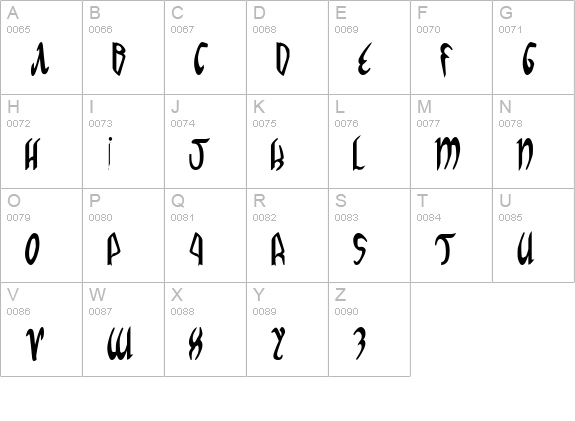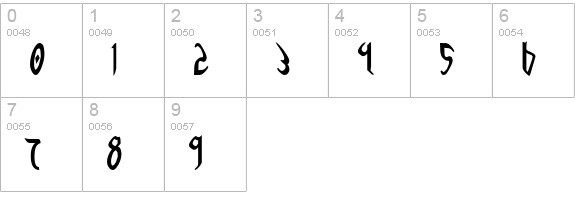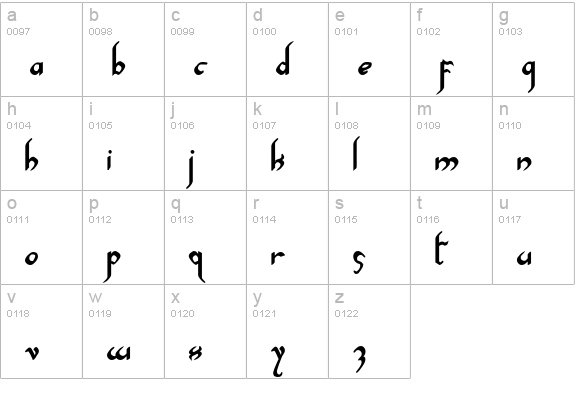
Xaphan Bold is a strong, high-contrast variant in the Xaphan typeface family \xE2\x80\x94 well suited to headlines, attention-grabbing titles, and strong calls-to-action.
Introducing Xaphan Bold, a modern and stylish font that exudes confidence and sophistication. With its bold and striking design, Xaphan Bold is perfect for making a statement in your projects. Whether you're designing a logo, poster, or website, this font will add a touch of elegance and flair. What makes Xaphan Bold even more appealing is that it is available for free download at FontsMarket.com. Yes, you read that right - you can get your hands on this fantastic font at no cost at all! Simply head over to FontsMarket.com and start using Xaphan Bold to elevate your designs to the next level. Don't miss out on this amazing opportunity to enhance your projects with Xaphan Bold. Download it now and let your creativity shine!